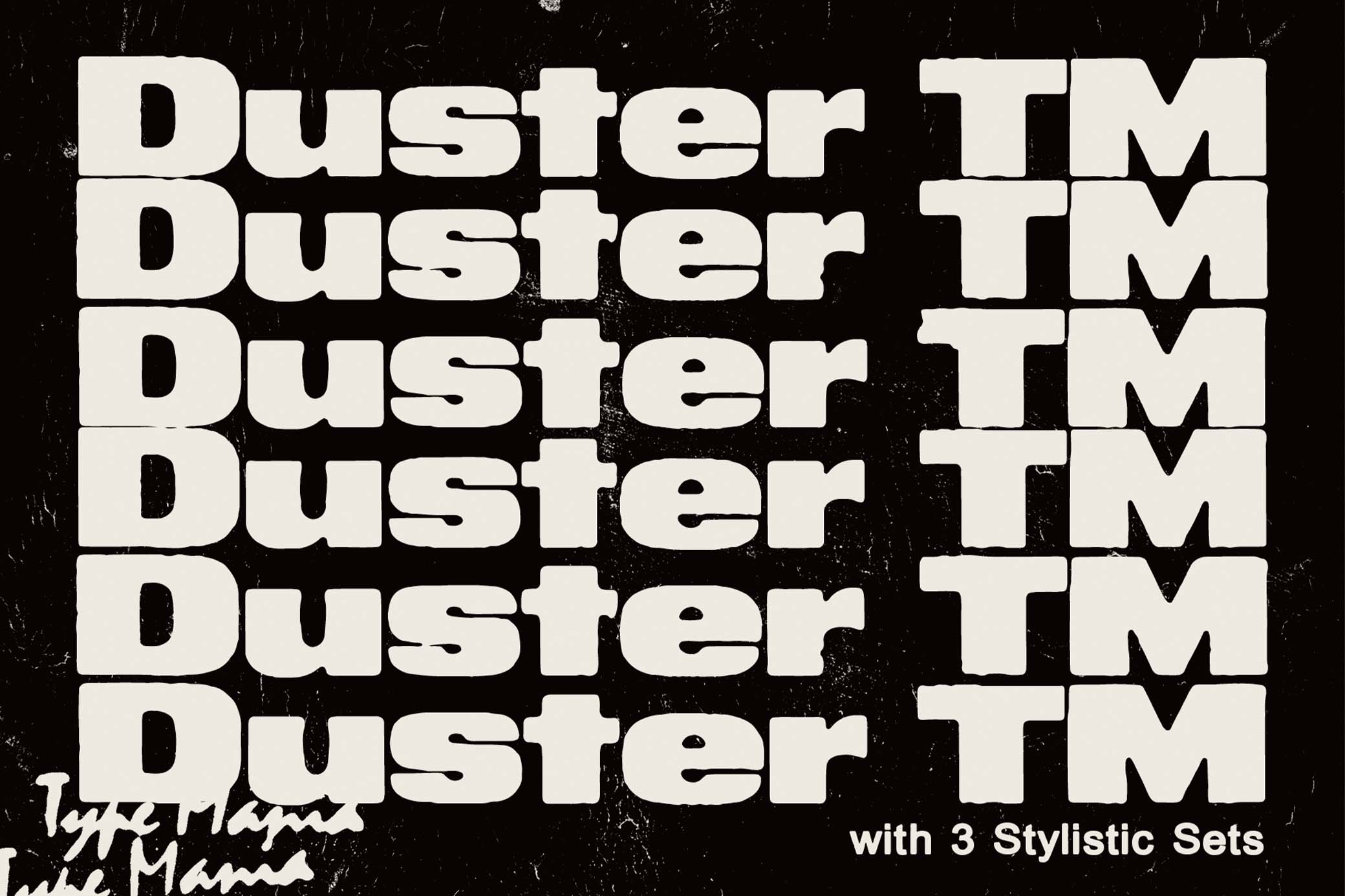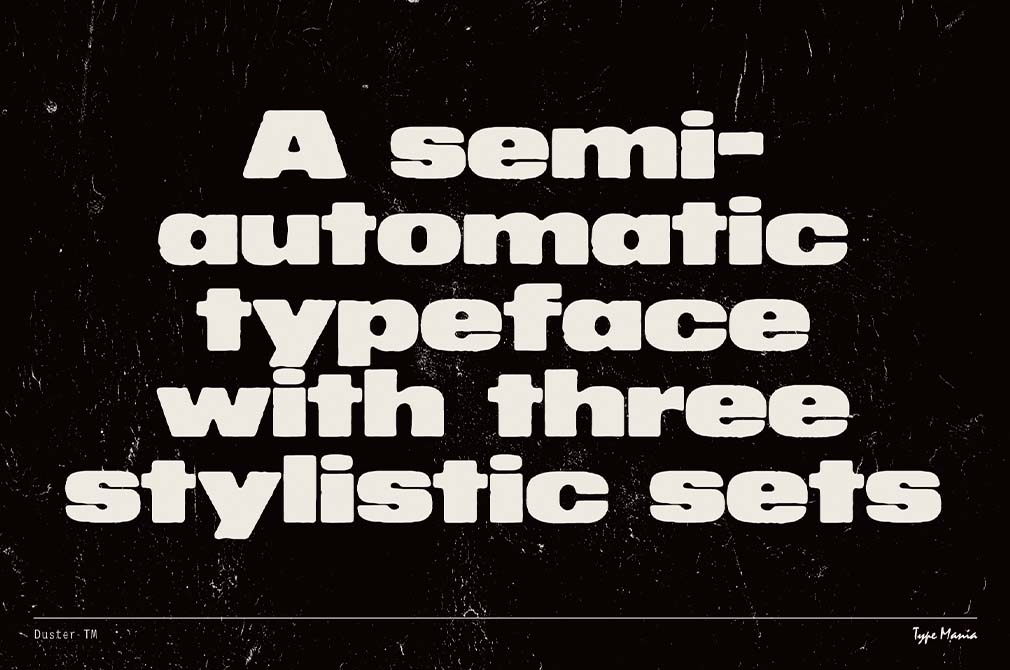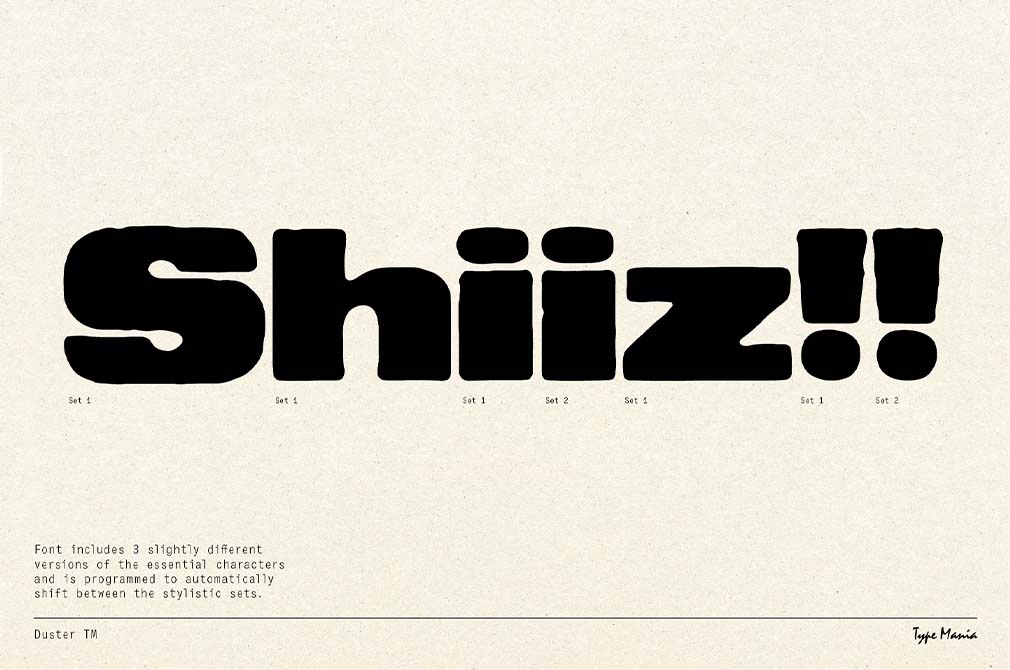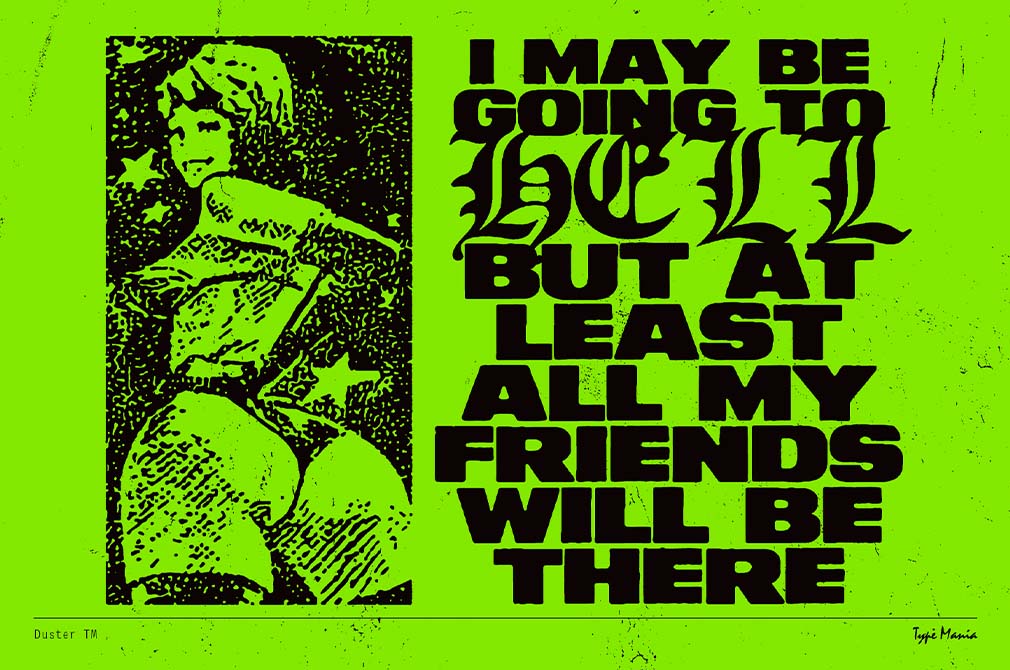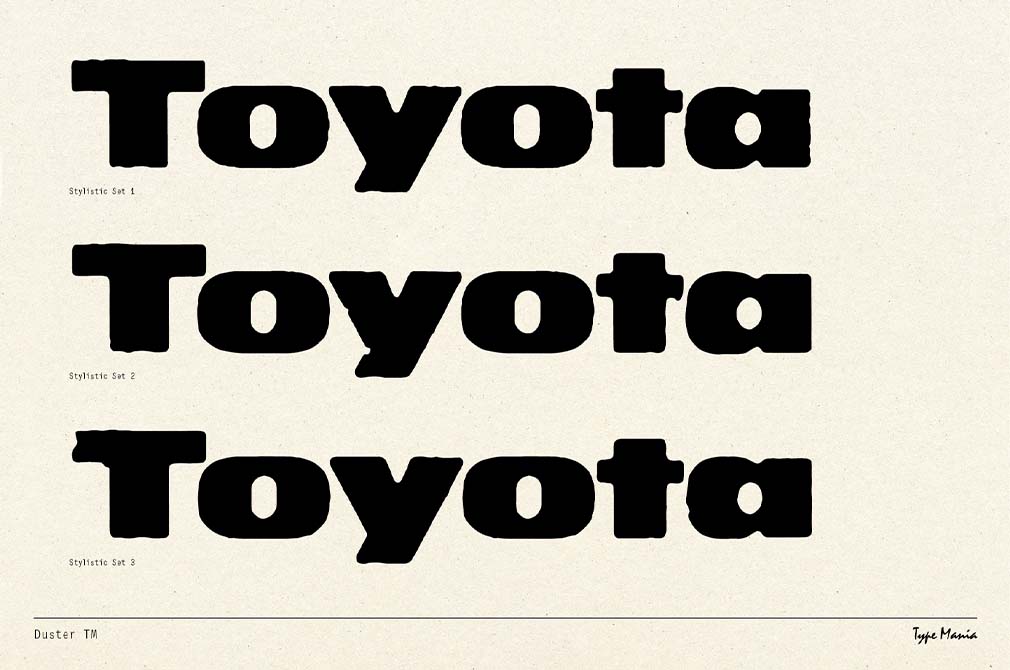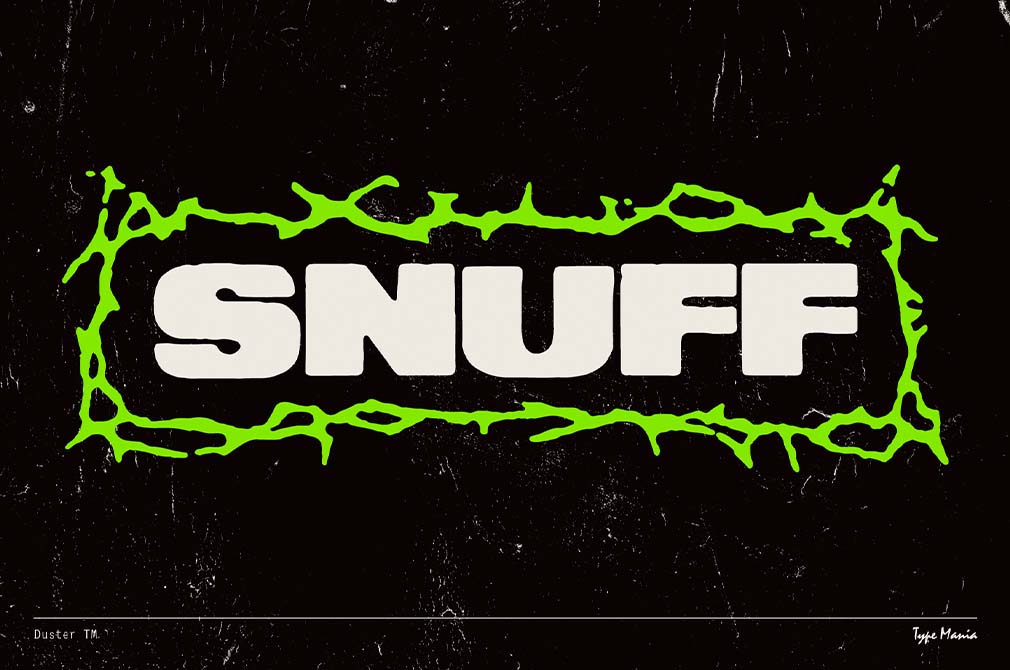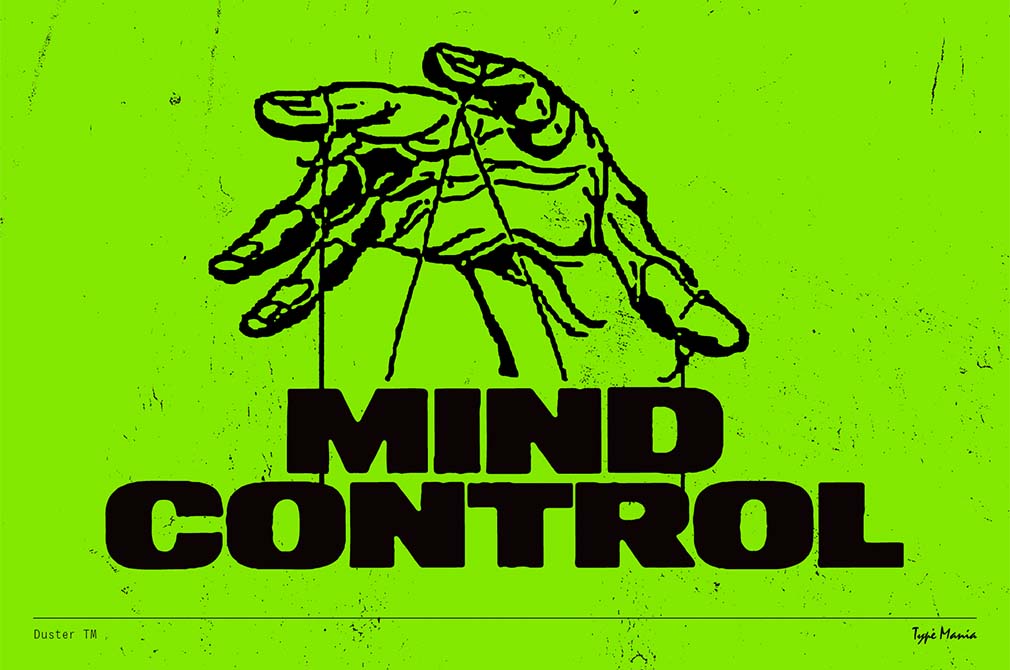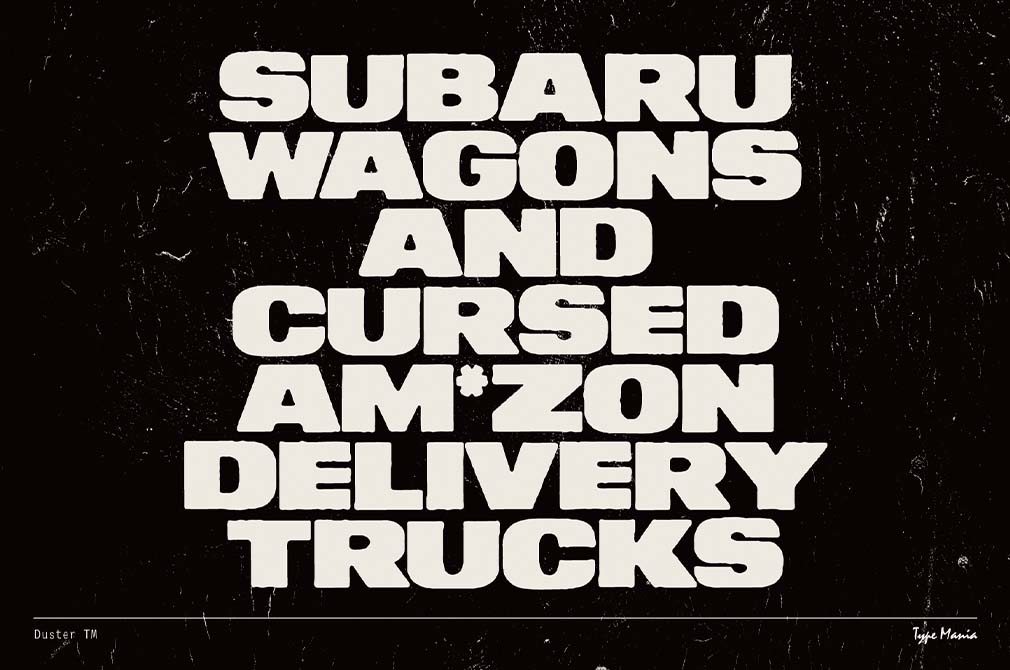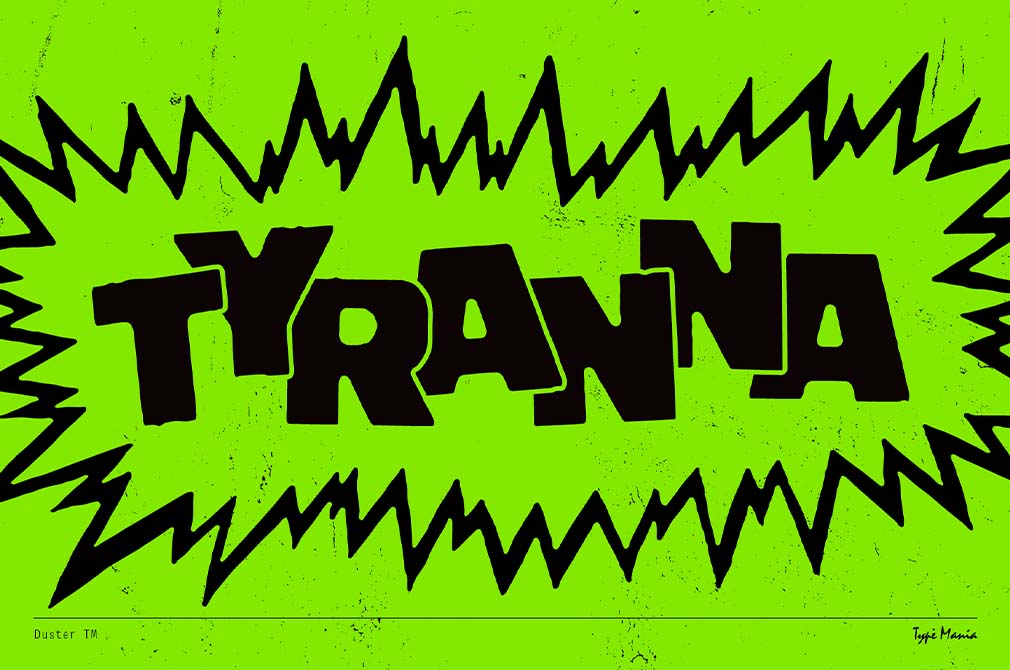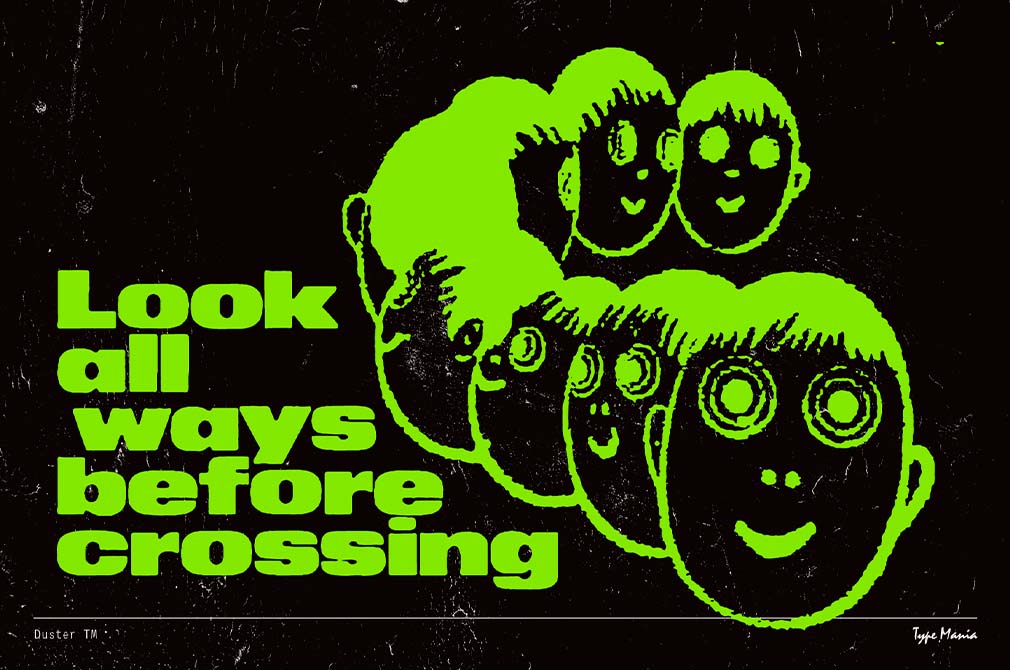
Duster TM | Heavy Distressed Type
Imagine you are at some vinyl store, and the eyes catch something quirky on the covers. On one of them, the font is hip, and you wondered if you could find one these days: 70s-inspired, grungy, and distressed. The answer is definitely yes.
Duster TM is a flagship of the New Wave style — if Talking Heads saw these weathered letters, they would put them on another single. The shabby chic is accompanied by 3 stylistic sets, multilingual support, uppercases, lowercases, symbols, punctuation, and other cool facets hidden in 367 glyphs. Now, you can imitate your fav vinyl designs, but we recommend you not restrain yourself: make your own offbeat projects that need a gritty look, such as posters, invitations, or even bold brand identities.